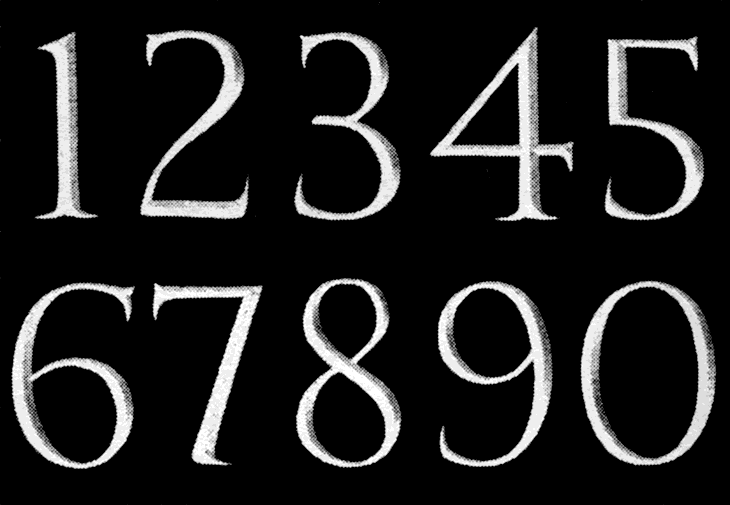
Latinized Arabic
Below is a set of sans-serif Arabic numerals. Any open-minded criticism highly welcome, although I'm mostly looking for discussion of the structures, including the stroke contrast distributions (as opposed to the "finish").
Note: They're intended for small point sizes.
An exercise in vertical stress, eh?
). Take another look at the "2", in any event. Perhaps a tighter angle between the main stroke and the base may be an alternate solution.
For the most part, I think they work very well. The "2" is grating on me slightly, but I think it's only due to me being used to seeing the thick stroke/thin stroke distribution attuned to more horizontal stress. It does seem a trifle thick at the top of the main stroke, though, compared to the "6" and the bottom of the "9". The thicker tapers of the ends of the "3" work a bit better, due I think to the tighter nature of the curves (that may temper somewhat my criticism of the "2" -- but not completely
The gentle curve and taper of the "4" is really elegant, and plays well off of the "7". In fact, I think I'd like to see more of the "4"'s taper and curve incorporated into the "7".
While you said that these figures were intended for text sizes, I can envision them as attractive display numerals as well. They'd also look great cut out of metal. Very nice.
The Arabic writing system has horizontal stress,
and that's the origin of the Latin numerals. The thing is, in the "conventional" Latin scheme the "2" and "5" have a mix of h and v stress, the "7" is mostly (sometimes entirely) h, the "4" has this wierd diagonal, and the rest are all v stress. Watduhel?! I'm actually a big fan of variation, but this is just arbitrary (in the same way that so many typographic traditions are).
I've tried to bring a method to the madness, but I'm actually just as unhappy with the "2" as you are. I think/hope that the "5" and "4" work great, and the "7" would work better in a serif face (where it could get a beak -and maybe foot serifs- to fill the void).
The "2" might just need to be wider. Or maybe you're right that the diagonal needs to become straight[er] (and thinner) at the bottom (instead of turning back). Another thing about the "2" is that it has a stiff spine (with a totally straight segment in there), and maybe that ruins it.
BTW, great idea about making the "7"'s diagonal echo the "4"'s more (at the top). Thanks!
Indeed.... I had to fight my first impulse to ask for a thinning at the top of the curve of the "2", and a thickening of its base stroke.
I have been intrigued by your previous challenges to the conventional mixed-stress figure structure, and I think what you are doing here with uniformly vertical stress is equally interesting.
Hmmm... On looking at it a second time, maybe the "2" could benefit from the same curve (if not the taper) that you used in the "4" (and will apply to the "7").
The "5" does indeed work very well, as, I think, does the "3". In fact, I very much like the slight downturn of the middle vertex of the "3".
I keep looking at the "6" and "9" as well, but I can't put my finger on why. Then again, I'm never quite satisfied with those figures in my own fonts either. The curves required in those two figures are deceptively complex, and difficult to keep balanced....
In any event, keep it up. I'm interested to see the continuing results.
The more I think about this, the more I get confused... :-/
I can build a set of "normal" numerals and make them work 90%, but I won't really be happy until I can justify what I've made. Imitating precedent has its merits, but doing so because of intellectual sloth is just... sucky.
Why give the numerals consistent vertical stress? Does it help low-level readability, or does it just satisfy our Modernist desire for Regularity? It's the former that intrigues me most, but I think in the latter I at least have a safety net: giving the numerals v stress makes them visually harmonious with the alphabetic glyphs. The question is, do they *reduce* readability?...
The thing is, no glyph is pure text or pure display. During my "Alphabet Reform" project I realized that you simply cannot *show* structures: they can only be *explained* (something graphic designers don't seem to like to do, btw). That's why "theoretical" alphabets (like Bayer's "Universal") are always ugly - they have to be seen as a conceptual compromise, not usable things.
So any actual glyphs I make/show inescapably represent parts of an actual font, something that can be used at different sizes, in different ways. Among other things, this brings the conflict between aesthetics and functionality to the fore. Specifically: my "2"'s spine makes it structurally divergent from some other numerals, which makes it more legible; my "1" has that ugly bar because it helps pull it away from the UC "I" and lc "el"; my "3" has a sag in its waist because that makes it more of a 3 (and not because Garamond did it); and many other such machinations.
http://www.themicrofoundry.com/other/catich_nums.gif
(They're intended to match the Trajan style.)
mmmmm... I like the lapidary nuances. The details on the '2' and the ... well, quite frankly ... I really like this.
I think it shows that giving the numerals vertical stress can totally work.
But the "2"... Why compromise it like that?
I just realized that the typeface Yellow (by Jürgen Weltin), a winner in the Bukvaraz competition, has "rationalized" numerals. Yay!